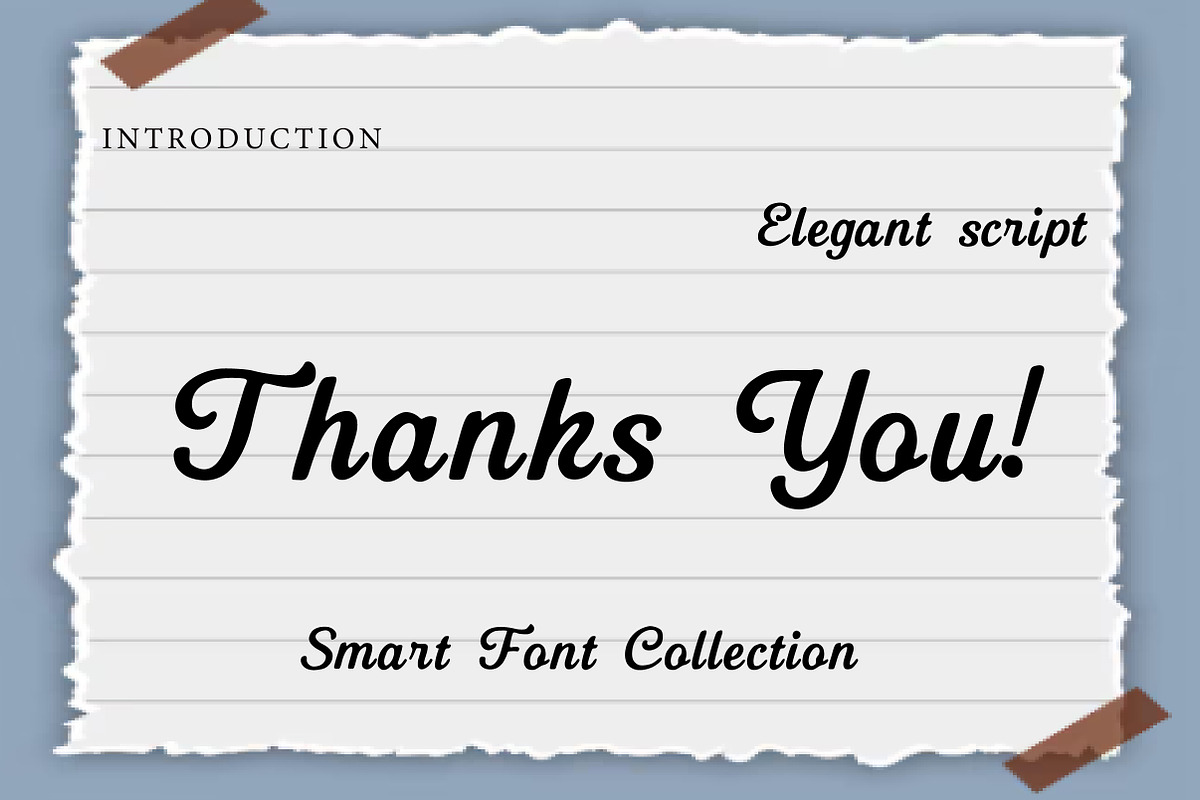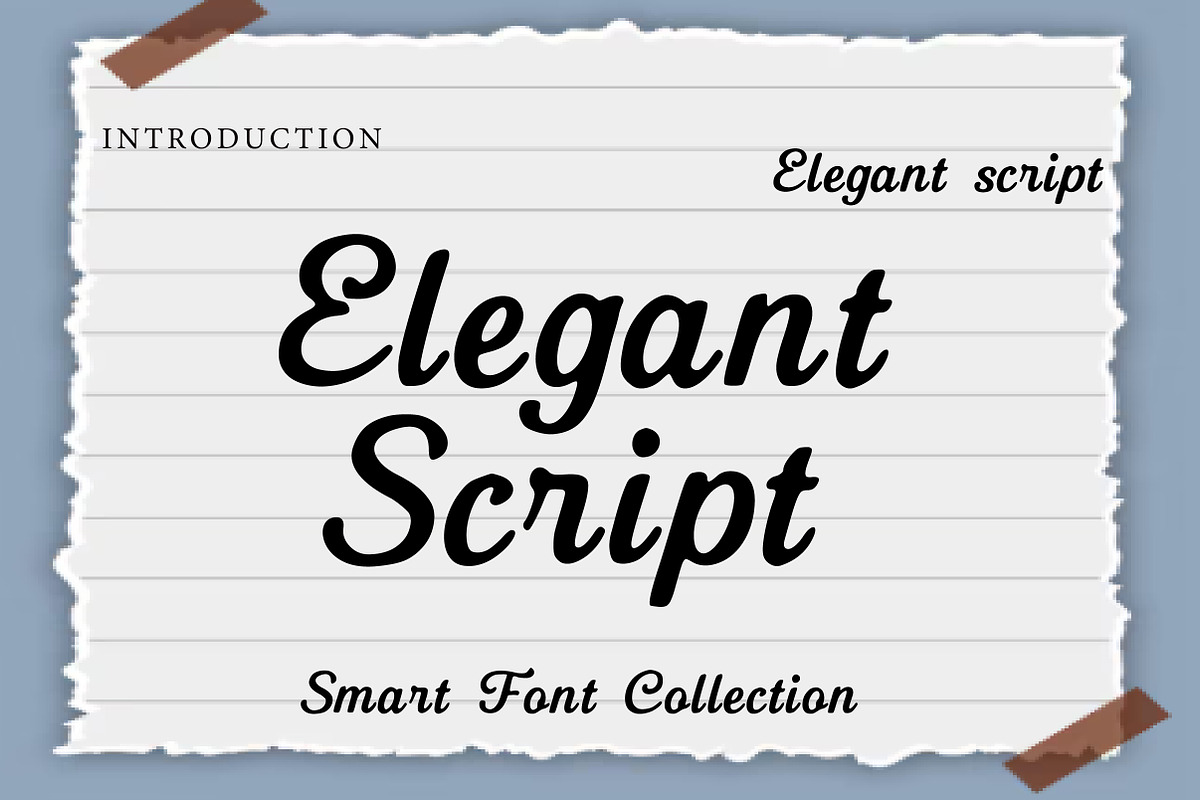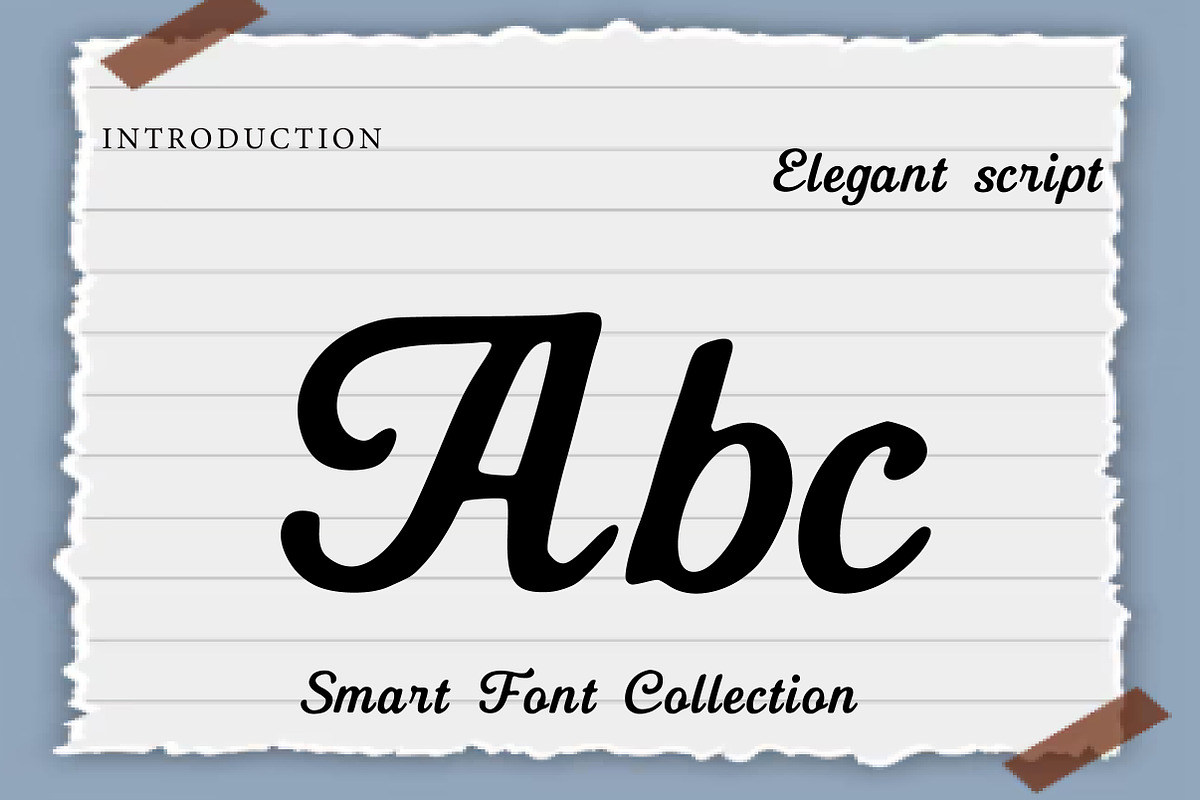
Elegant script
Elegant Script is a smooth, stylish script font with a graceful handwritten feel. Its clean strokes, soft curves, and balanced letterforms create a modern-classic look that feels romantic, premium, and highly readable. The natural flow and subtle thickness make it perfect for elegant typography that looks personal yet polished.
Ideal for wedding invitations, branding, logos, photography watermarks, beauty and fashion labels, quotes, social media designs, packaging, and luxury stationery. Whether you’re crafting a feminine brand identity or a classy headline, Elegant Script adds a refined handwritten charm to every project.